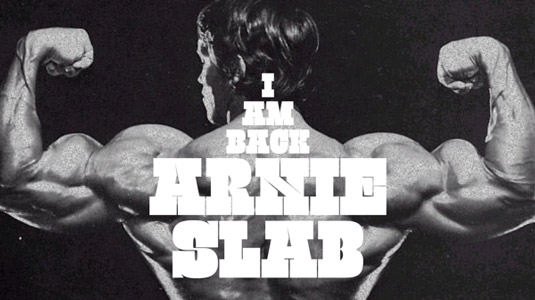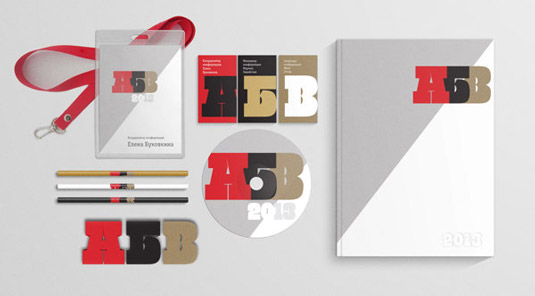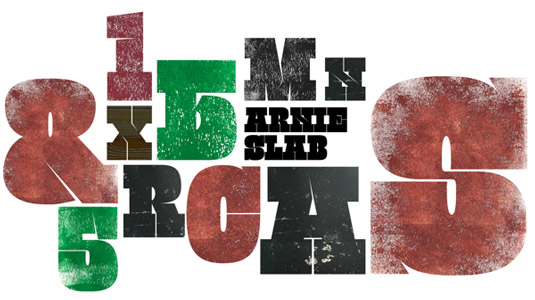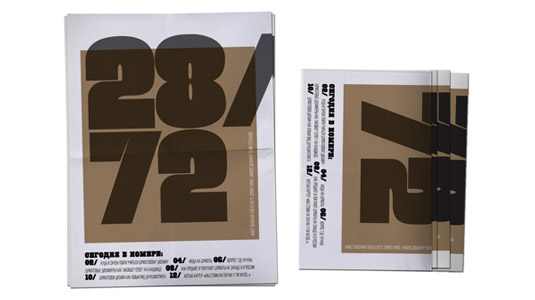
He's back: the Arnie typeface
Check out this new font design, inspired by the professional bodybuilder turned actor Arnold Schwarzenegger. Do it. Do it now!
Yes, you read that right! Clearly a fan of Arnold Schwarzenegger's strong (ahem) acting abilities, graphic designer Julia Stepanova has developed this new typeface, Arnie Slab, in his honour.
"This typeface is named after Arnie and boasts masculine forms, unsophisticated but ambitious, just like Arnie himself," explains the Moscow-based Stepanova. She also drew inspiration from the wooden letterforms of the 19th century.
Despite being more than a little distracted by Arnie's bulging biceps, we actually really like this strong, bold typeface. Sporting a somewhat retro-style, the design works really well on the case studies provided by Stepanova.